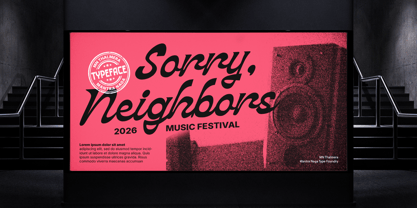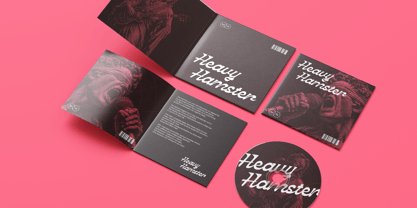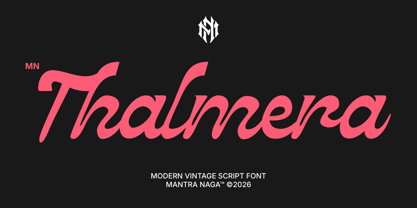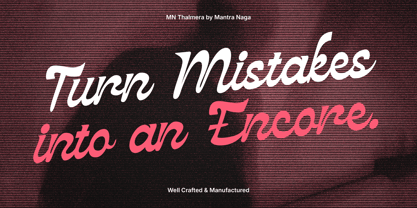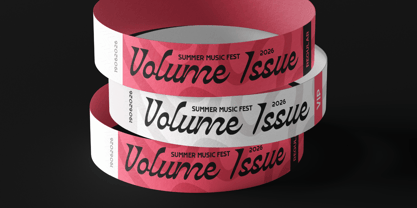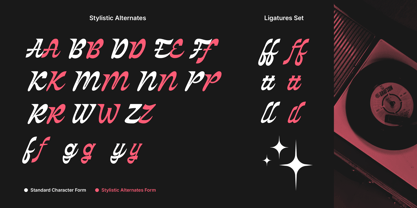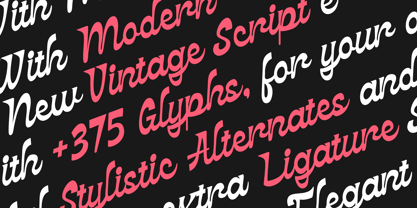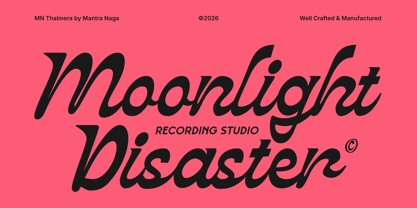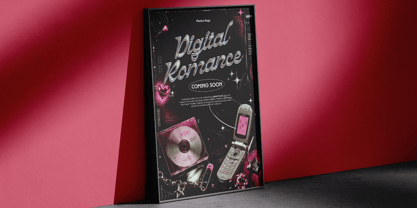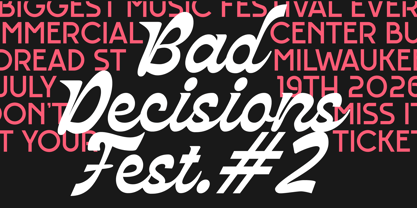
MN Thalmera
The MN Thalmera Font Family was designed by Fredo Eka Pratama and published by Mantra Naga Studio. MN Thalmera contains 1 styles. More about this family
MN Thalmera is an expressive and unapologetically bold script serif font that embodies the essence of a strong visual identity. Crafted for those who demand presence, this typeface seamlessly merges classical structure with artistic flair. Its flowing letterforms, refined serif details, and gracefully curved stroke endings create an elegant yet commanding aesthetic. With alternate capitals and lowercase glyphs, MN Thalmera ensures that every wordmark, album title, and headline possesses a unique character. Ideal for music artists, labels, and creative brands, this font excels in album cover design, merchandise graphics, fashion and beauty branding, editorial headlines, and premium logo design that stands out from the crowd. Not intended for body text, MN Thalmera is specifically built for display purposes, making a lasting impact and enhancing visual branding that resonates with audiences.